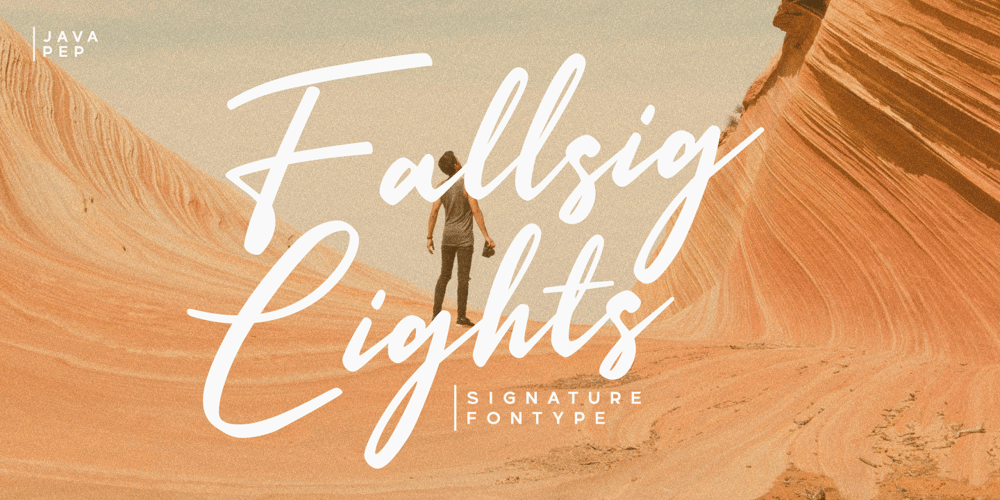
Fallsig Lights Font Family was designed by Java Pep and published by Java Pep. Fallsig Lights contains 1 styles and family package options. Introducing a signature font called Fallsig Lights, this font is made of pretty shapes and strokes so Fallsig Lights font is perfect for branding, wedding invitations, greeting cards, publishing, logotype, headlines, quotes, advertising, product packaging, etc.